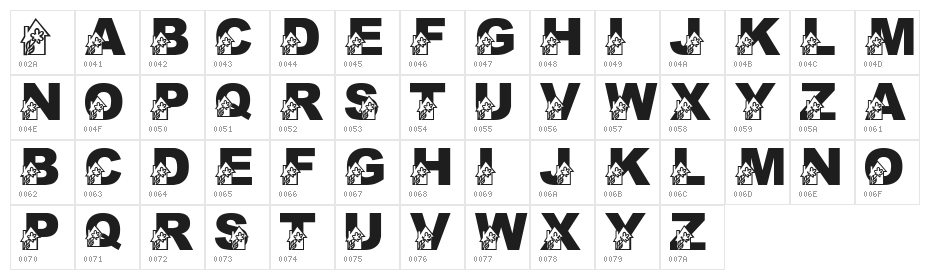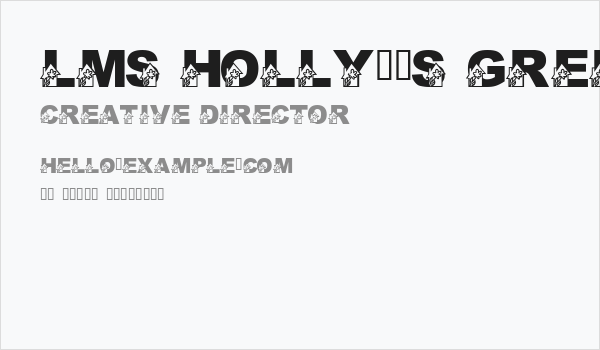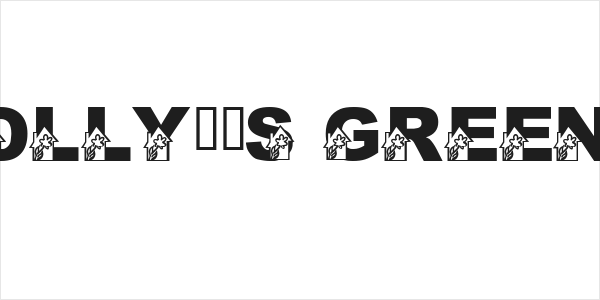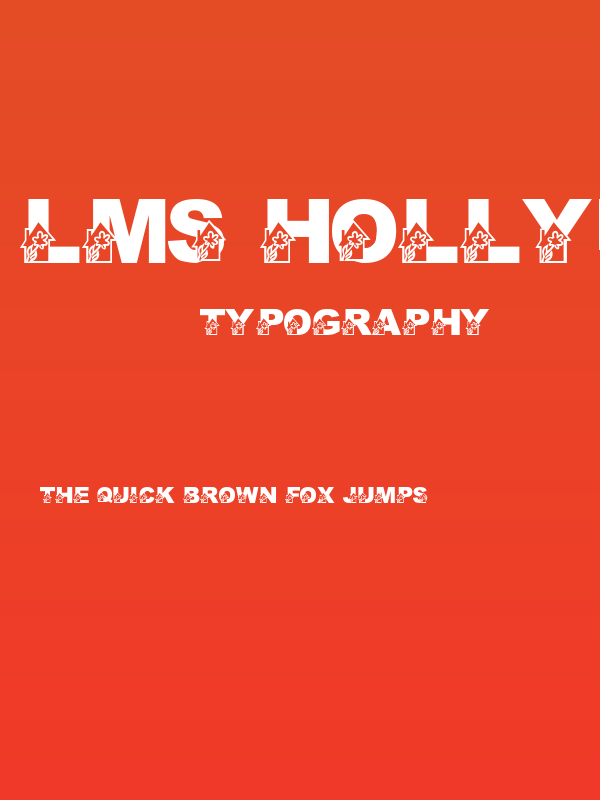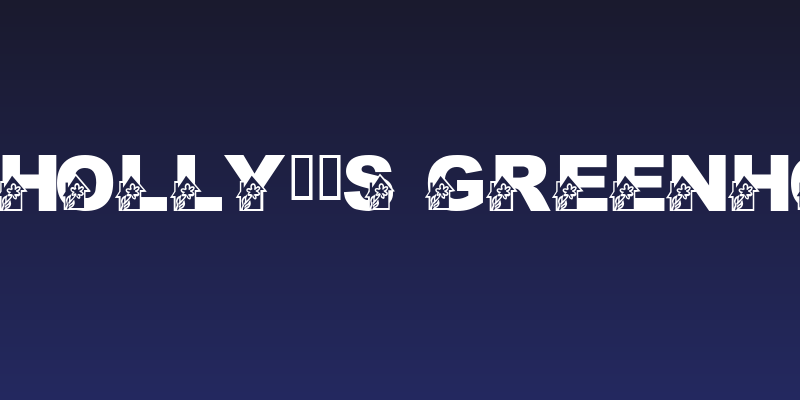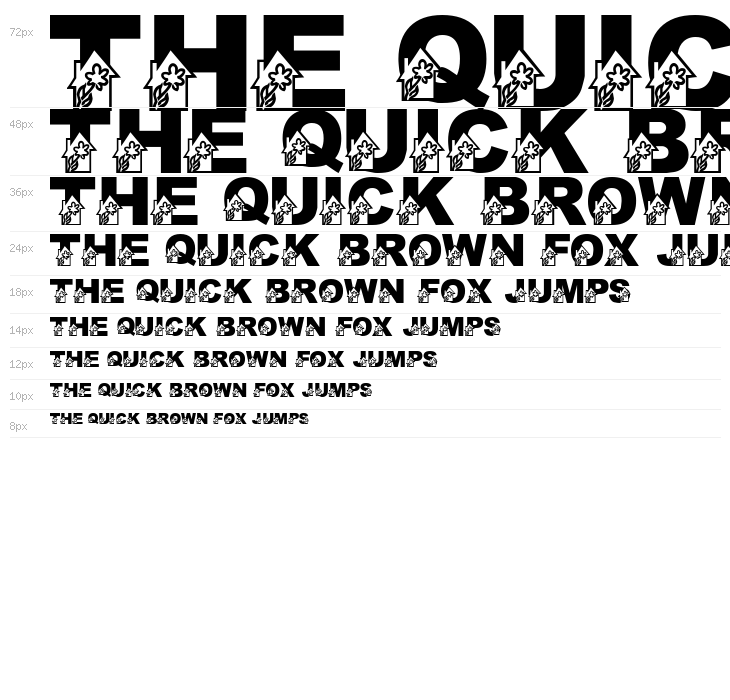
LMS Holly's Greenhouse Font
LMS Holly's Greenhouse Description
This decorative font features bold, uppercase letters with a unique twist. Each character is adorned with a charming greenhouse motif, incorporating a small house and plant design within the letterforms. The style is playful and eye-catching, making it ideal for projects that require a touch of whimsy and creativity. The bold weight ensures that the letters stand out, while the decorative elements add a layer of visual interest. This font is perfect for themed designs, particularly those related to gardening, nature, or home decor.
Proposed ProjectsIdeal for gardening event posters, eco-friendly product packaging, or whimsical home decor branding.